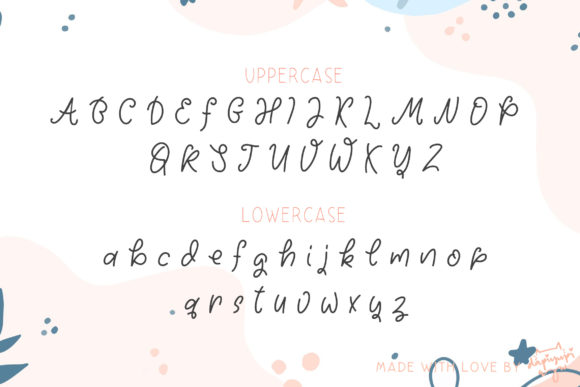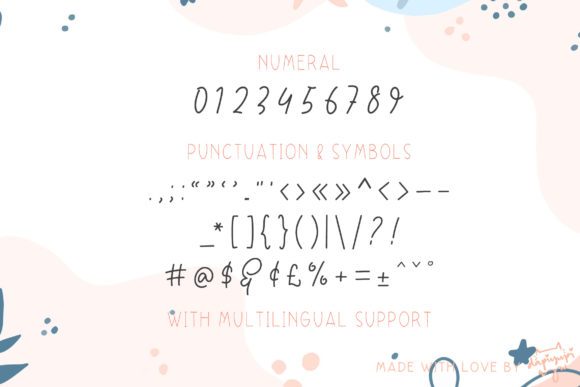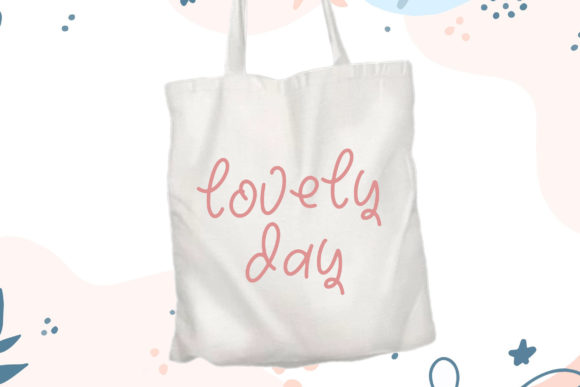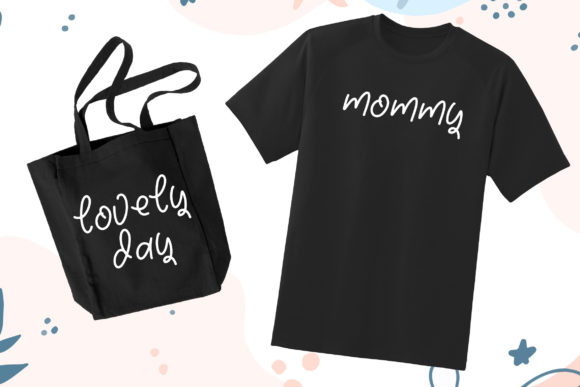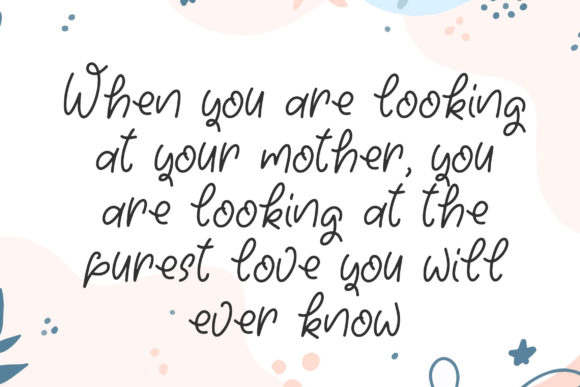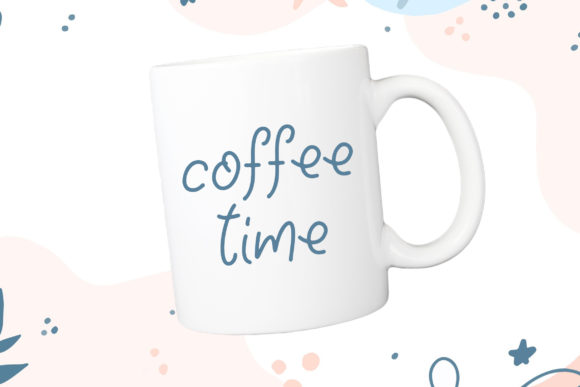
Introduction to Rumpi Girl Font
Rumpi Girl is a cute and quirky handwritten font.
Sweet and playful, this typeface can elevate the look of any creation ranging from product packaging to business cards, and more .
Key Features of Rumpi Girl Font